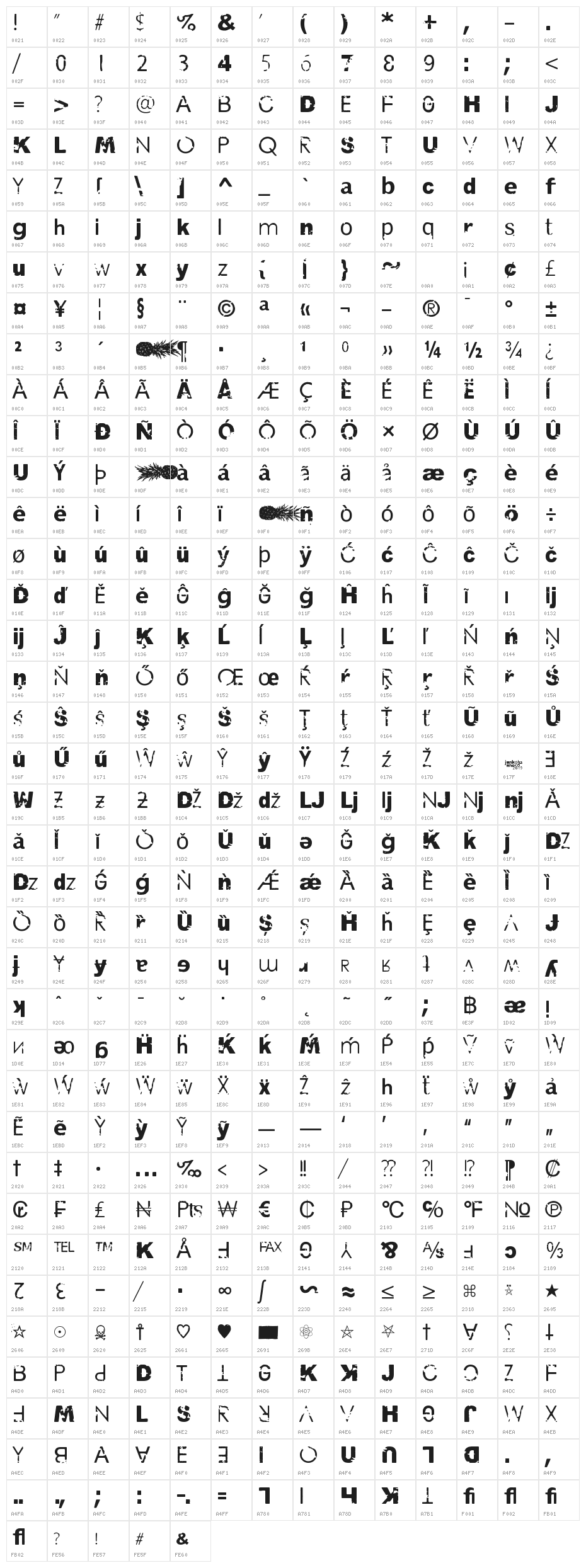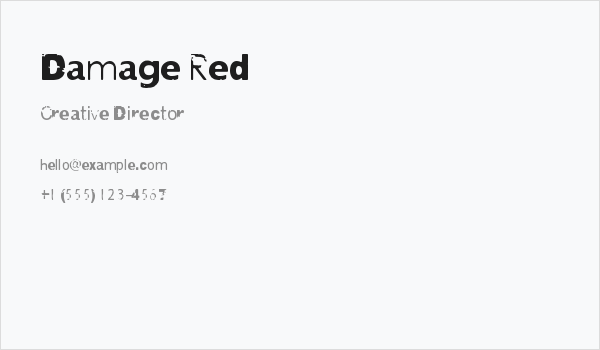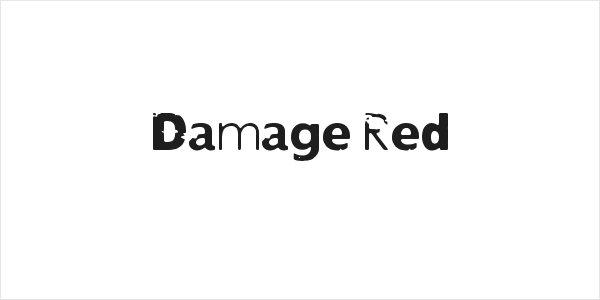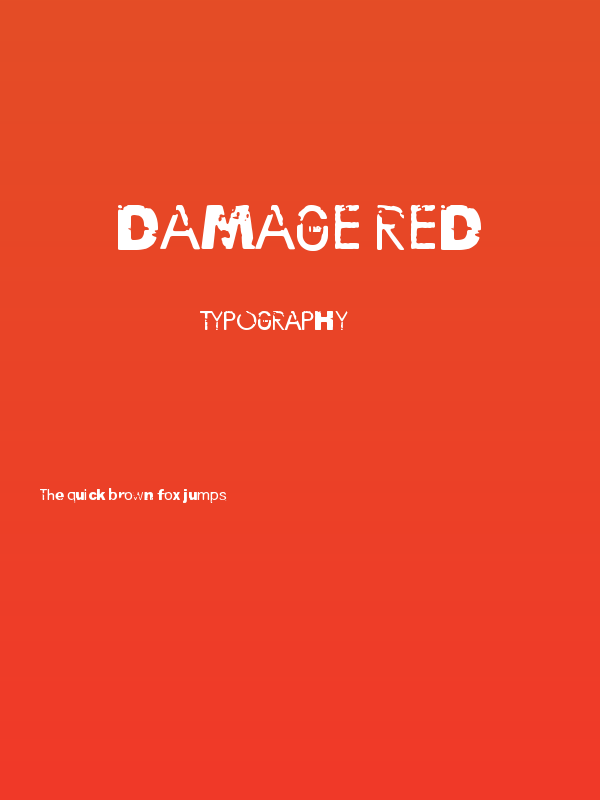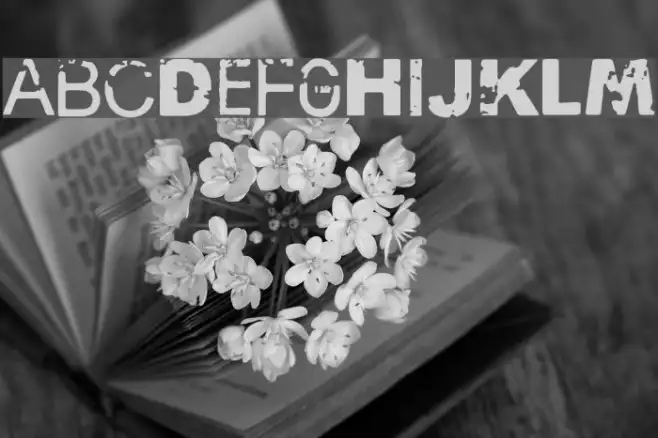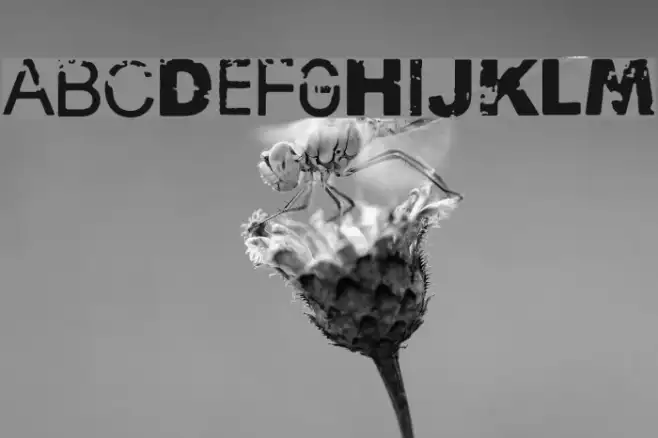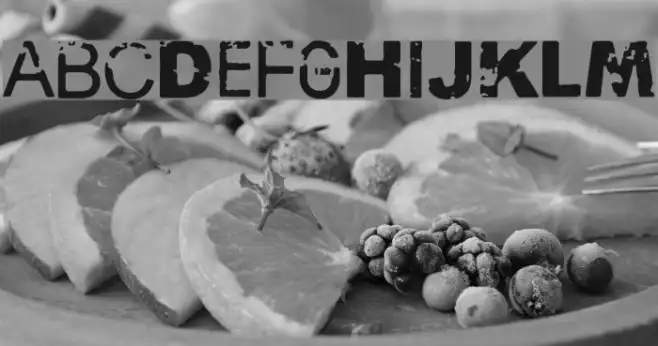
Damage Red Font
Damage Red Description
This font features a distressed, grunge aesthetic with a bold and impactful appearance. The characters are designed with irregular edges and a worn-out look, giving them a unique, rugged texture. This style is reminiscent of urban decay or vintage posters, where the letters appear as if they have been weathered over time. The uppercase and lowercase letters maintain a consistent style, with some characters showing more distress than others, adding to the overall chaotic yet artistic feel. The numbers and special characters follow the same design principle, ensuring uniformity across the font. This font is ideal for projects that require a bold statement or an edgy, rebellious vibe.
| Overall Style | Grunge, Urban, Vintage |
| Proposed Projects | Ideal for album covers, streetwear branding, posters, and any design needing an edgy, urban look. |